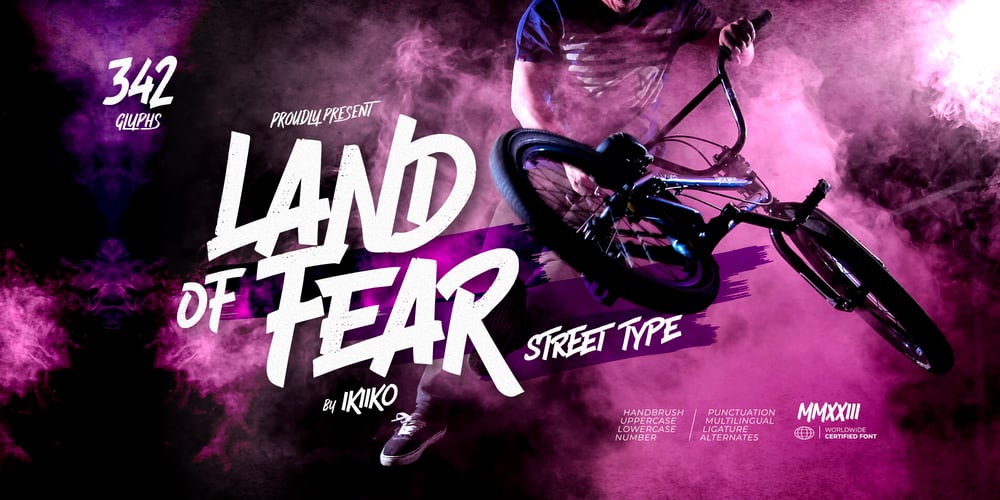
Land of Fear
Land of Fear font
Land of Fear Font Family was designed by Wahyu Eka Prasetya, Andhika Pradana and published by IKIIKOWRK. Land of Fear contains 1 styles and family package options. Proudly present Land Of Fear – Street Type, created by ikiikoLand of Fear is a hand-drawn street brush font in an urban style that has a gritty and edgy look, conveying the roughness of city streets. The letters have bold characters and appear to be scratched quickly with a strong brush.This font has wild strokes and comes in different widths and angles, giving the letter a sense of spontaneity and vitality. This font has an overall rough and rugged look, but also evokes a style that is young, wild and free.This typeface is perfect for an extreme sport stuff, street vibes, magazine layout, poster, fashion brand, urban style, quotes, or simply as a stylish text overlay to any background image.What’s Included? Uppercase & Lowercase Numbers & Punctuation Alternates & Ligature Multilingual Support Works on PC & Mac